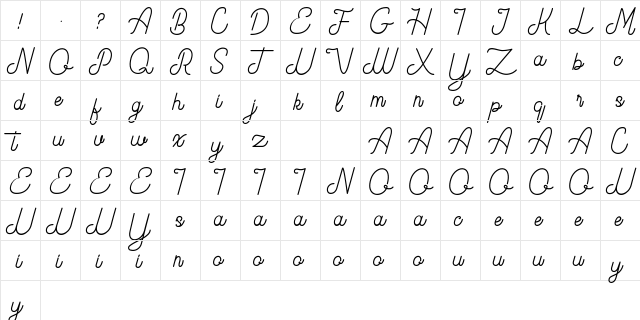
Beauty One Regular
Design Context for Beauty One Typeface
Beauty One takes a measured approach to typography — its balanced proportions and neutral character make it a reliable workhorse for both digital and print work.